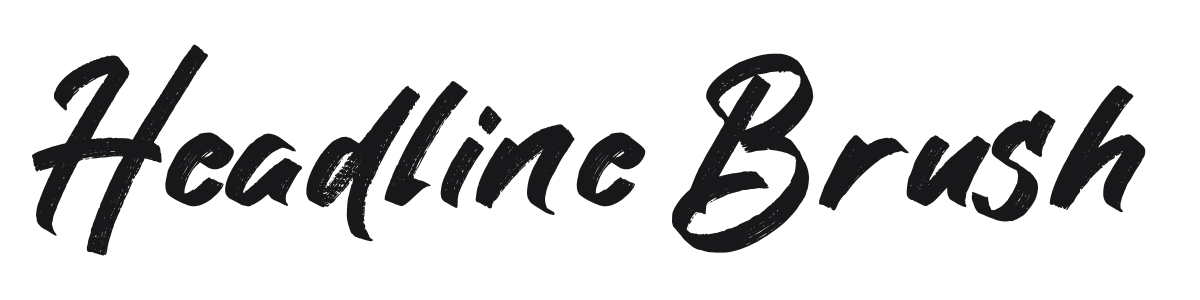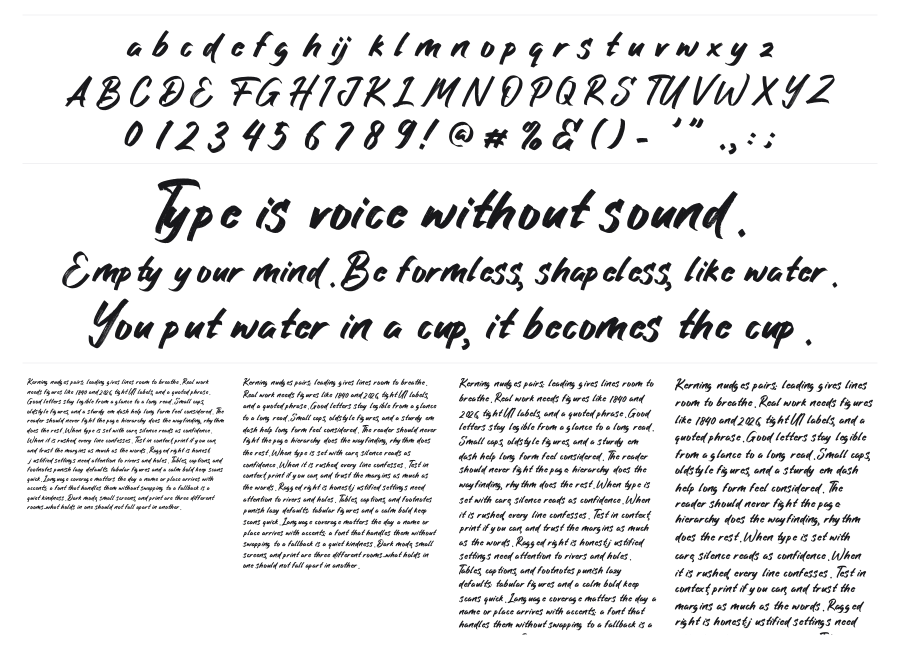
Headline Brush
Headline Brush is a bold, heavily textured brush script with raw ink drag and visible bristle marks that make every word feel hand-painted. The strokes swell and taper dramatically, with irregular angles and rough terminals that give it real momentum. Strong at large sizes for posters, album art, apparel branding, and any headline that needs attitude.